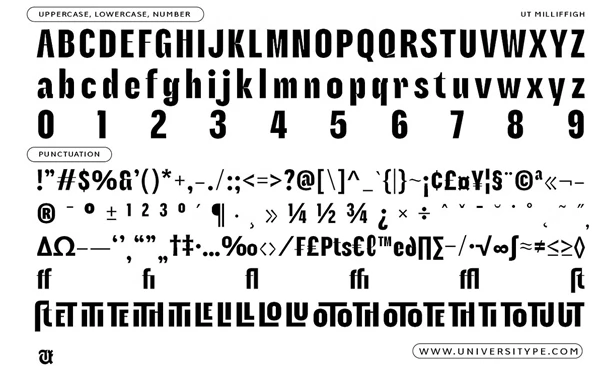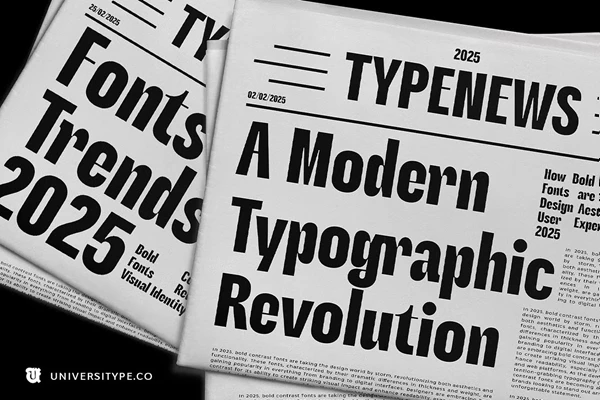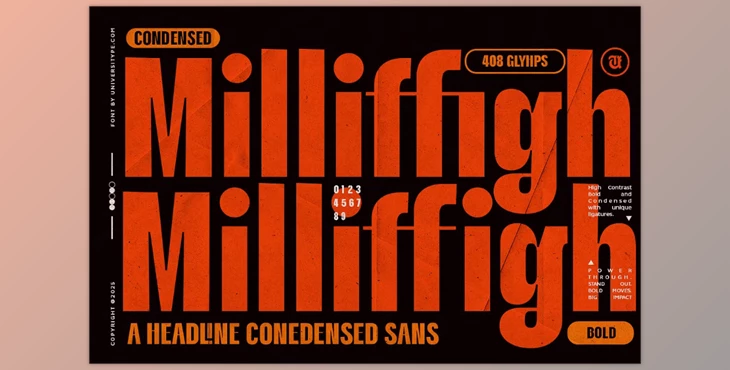
UT Milliffigh - A Condensed Font:
The UT Milliffigh typeface style best serves the brand design feels that a contemporary designer needs and looks for. The sharp juxtaposition of its condensed font leaves no room for dullness and takes attention head-on. This is best for pieces where title, marketing, or digital branding is present. Every work done with this typeface will have presence without loss of comprehensibility.
- High-Contrast Boldness: Fusing thick strokes with light touches delivers striking boldness.
- Condensed Form: Takes the letter's boldness to a new level without losing space or legibility.
- Stylish ligatures and alternates: Hands crafted dynamic and bold tailors for lowercase and uppercase letters.
- Smart & Attention Grabbing: Gets the job done accurately if written in all-caps or mixed case.
This typeface is designed for creatives keen to push typographic limits, like brands and businesses envisioning imposing and vibrant typefaces. UT Milliffigh will allow you to craft a brand identity for a luxury fashion house or a tech startup or set your editorial magazine layout to high fashion—all without missing a beat.
UT Milliffigh Typeface is Ideal For:
- Branding & Logo Design: It boosts confidence and conveys a powerful message.
- Luxury & Fashion Packaging: Perfectly complements your bold yet elegant designs.
- Editorial & Magazines: Best for edgy layouts, magazine stand-out designs, and striking headlines.
- Tech & Sportswear: Gives off that fresh appeal fit for forward-looking audiences.
- Advertising & Marketing: Elevate your ad campaigns by strengthening your statement.
- Plurality: Comes with stylistic alternates and ligatures, which adds to the compositional sophistication of designs.